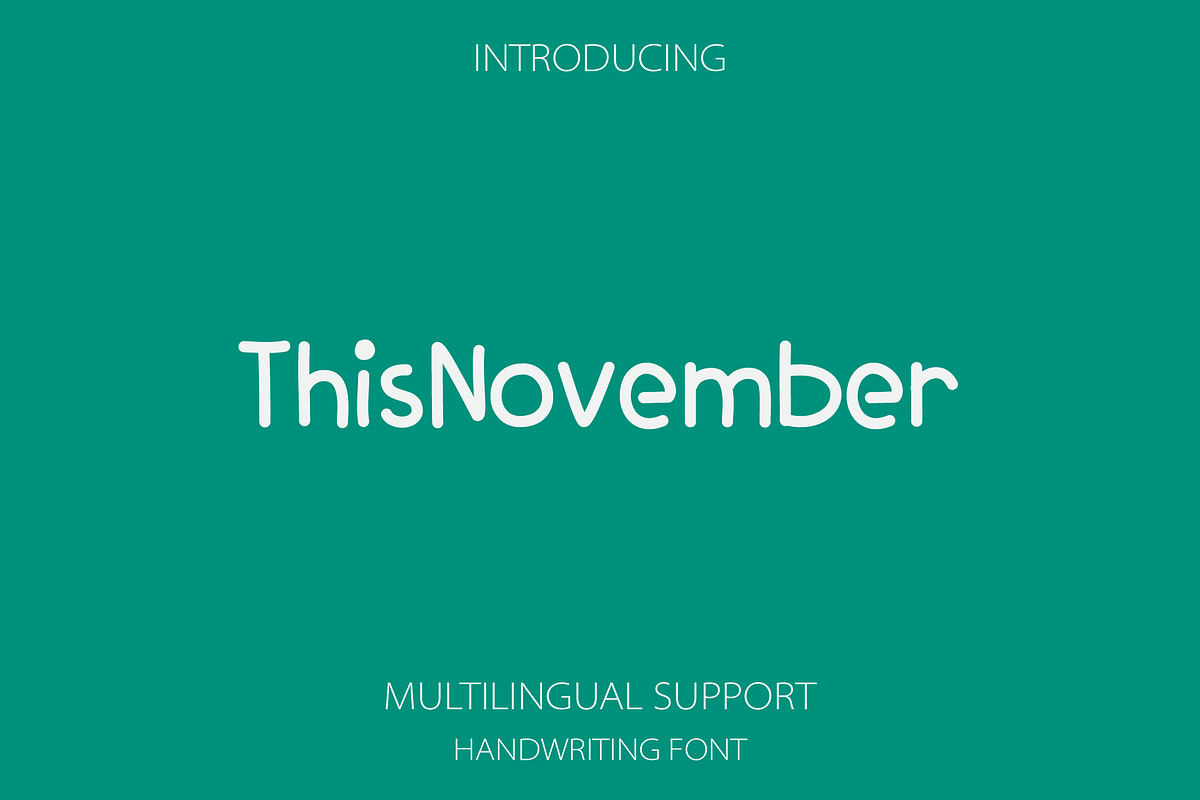
ThisNovember a Handwriting Font Free Download
ThisNovember - A Handwriting Font Free Download
ThisNovember - A Handwriting Font Free Download captures the warmth and authenticity of handwritten text, making it an ideal choice for personal, creative, and expressive design projects. With its casual, flowing strokes and natural charm, this font is perfect for quotes, greeting cards, lifestyle branding, blog headers, and handwritten-style logos.
Designed to mimic real handwriting with a modern twist, ThisNovember adds a personal, intimate feel to any layout. Its relaxed and stylish appearance brings emotion and personality into your designs, helping your message connect on a deeper level with your audience.